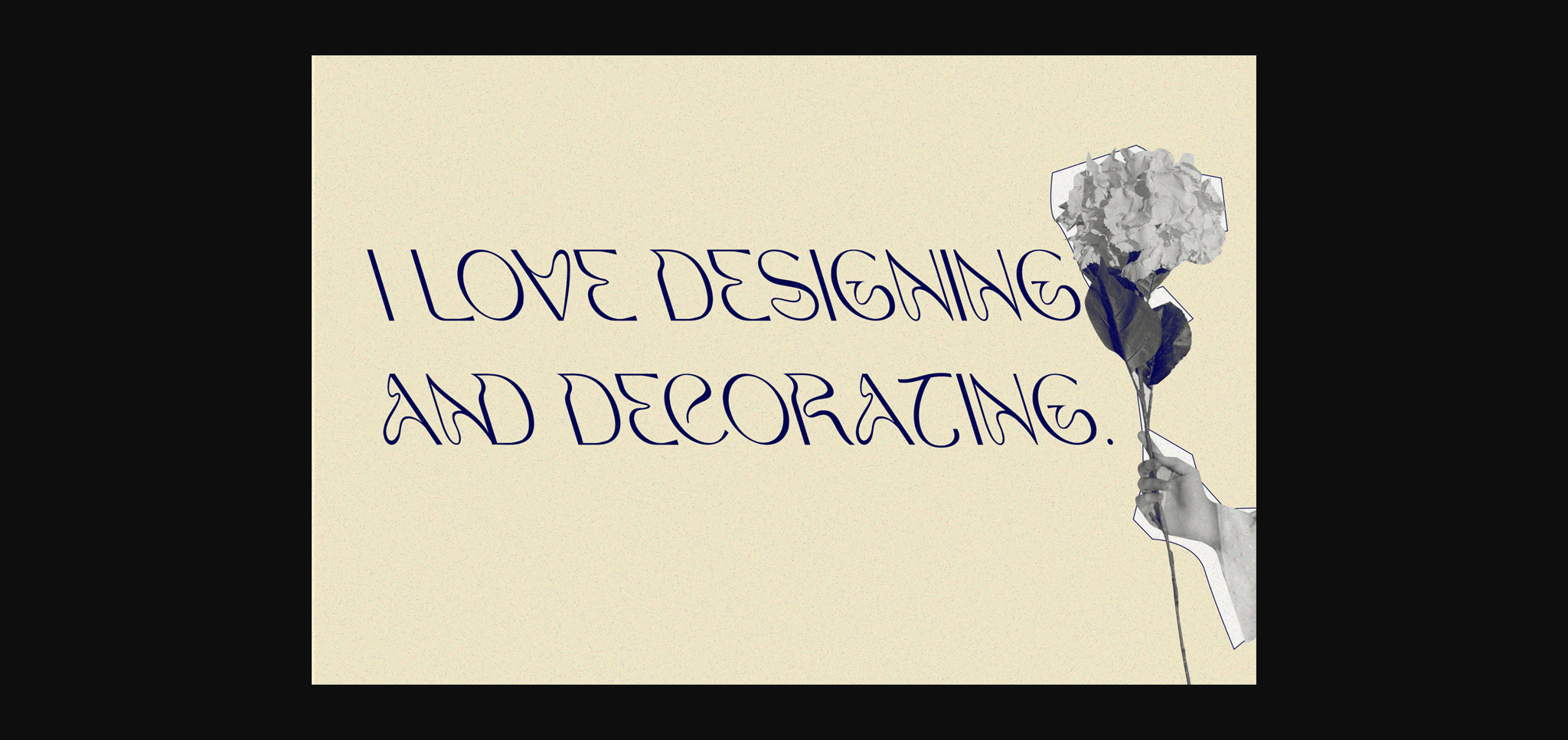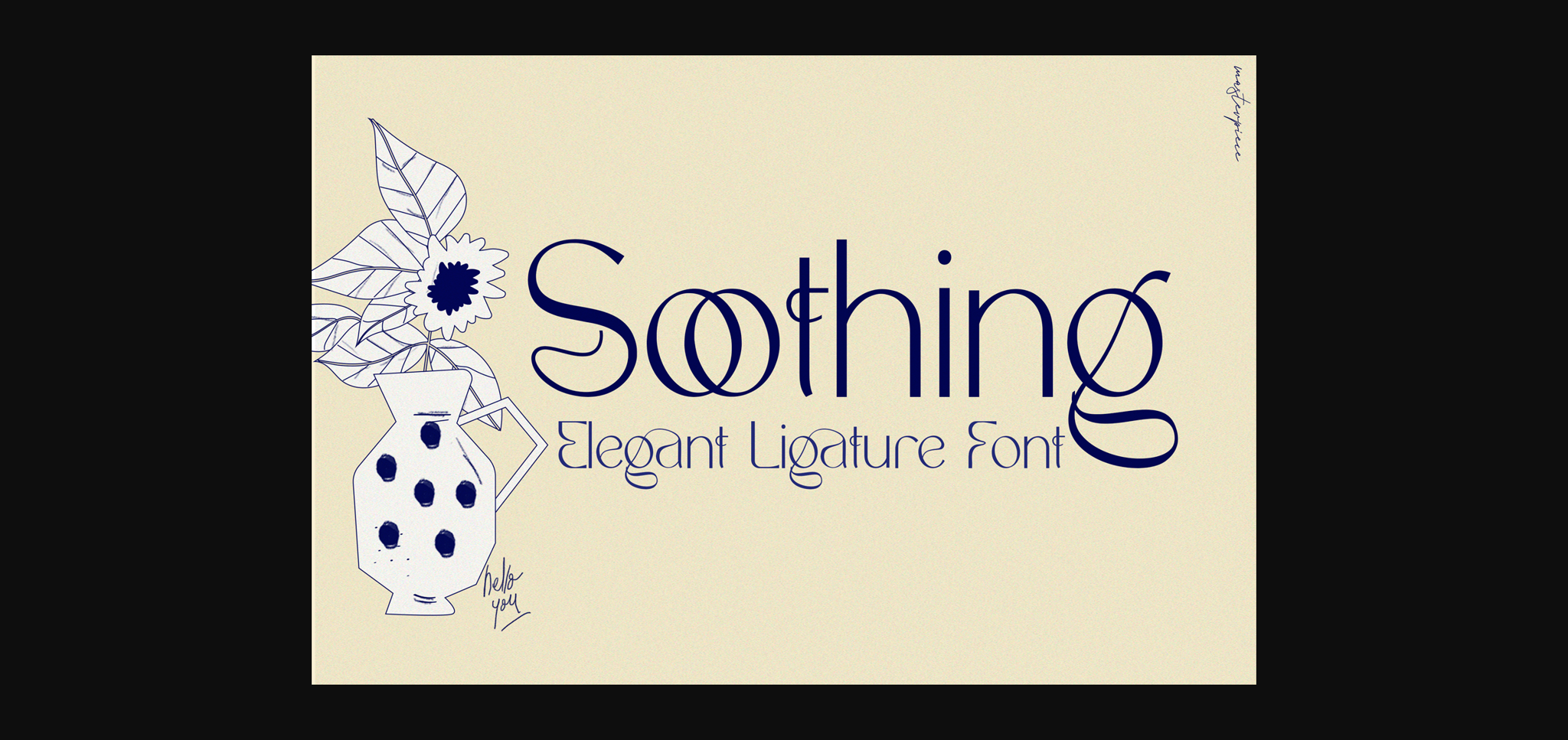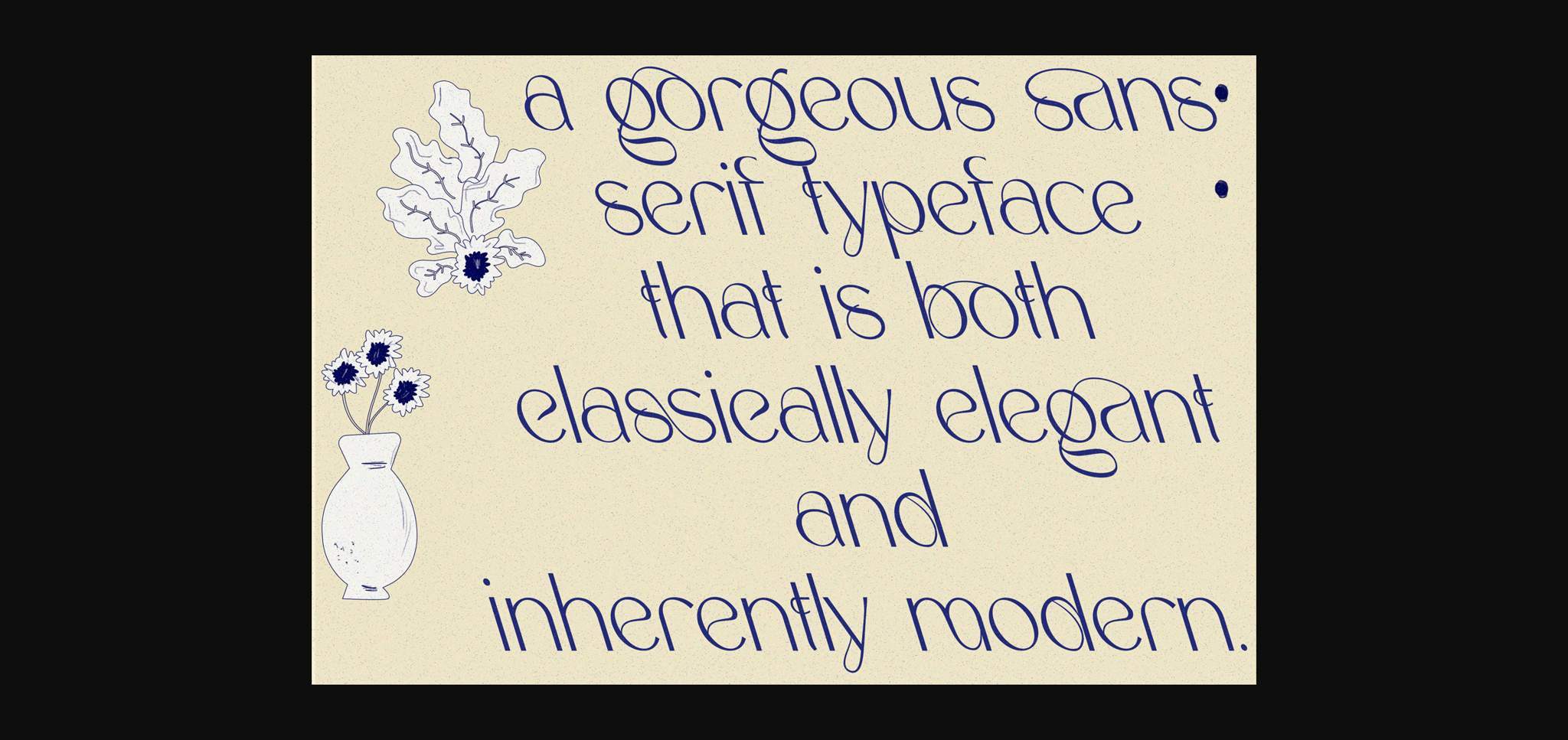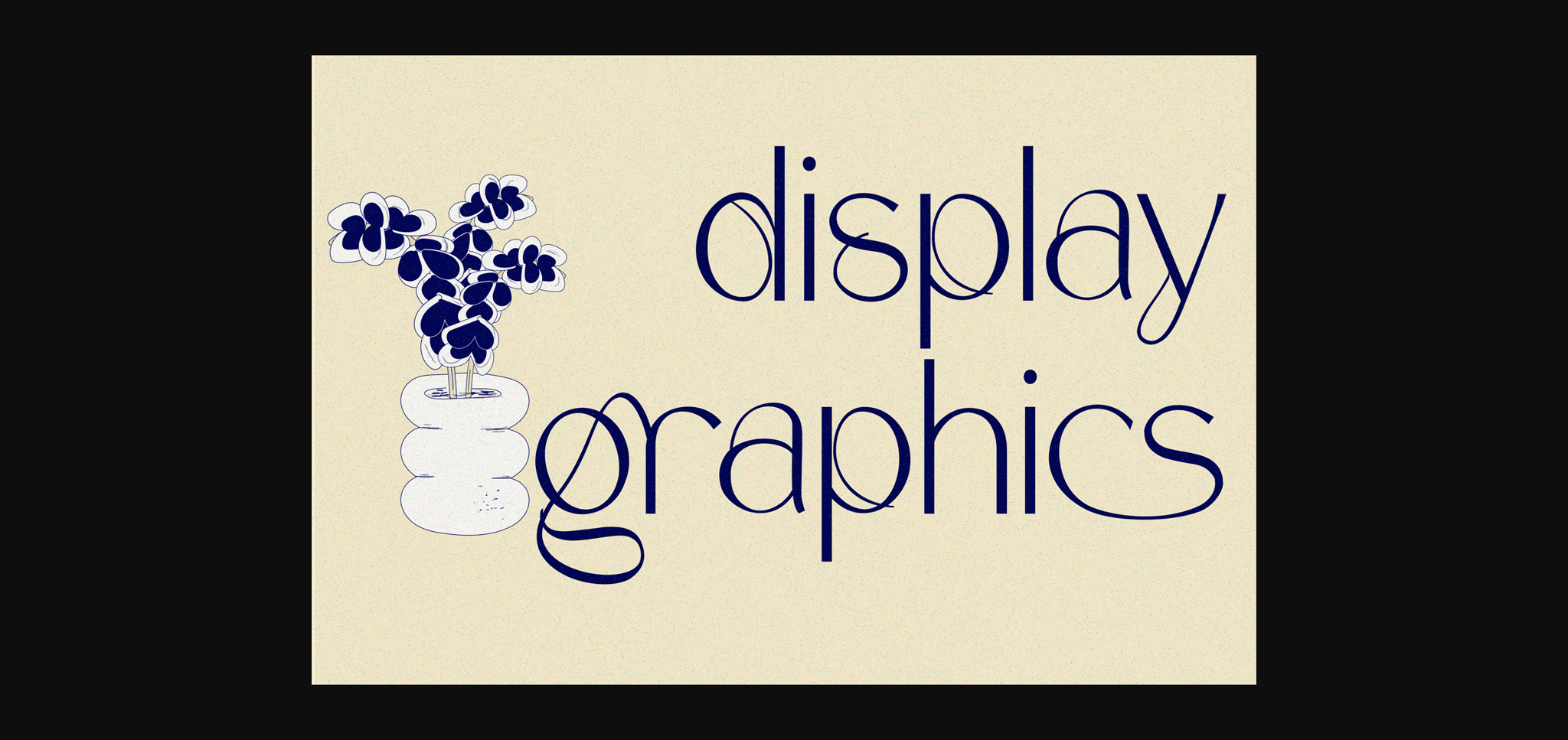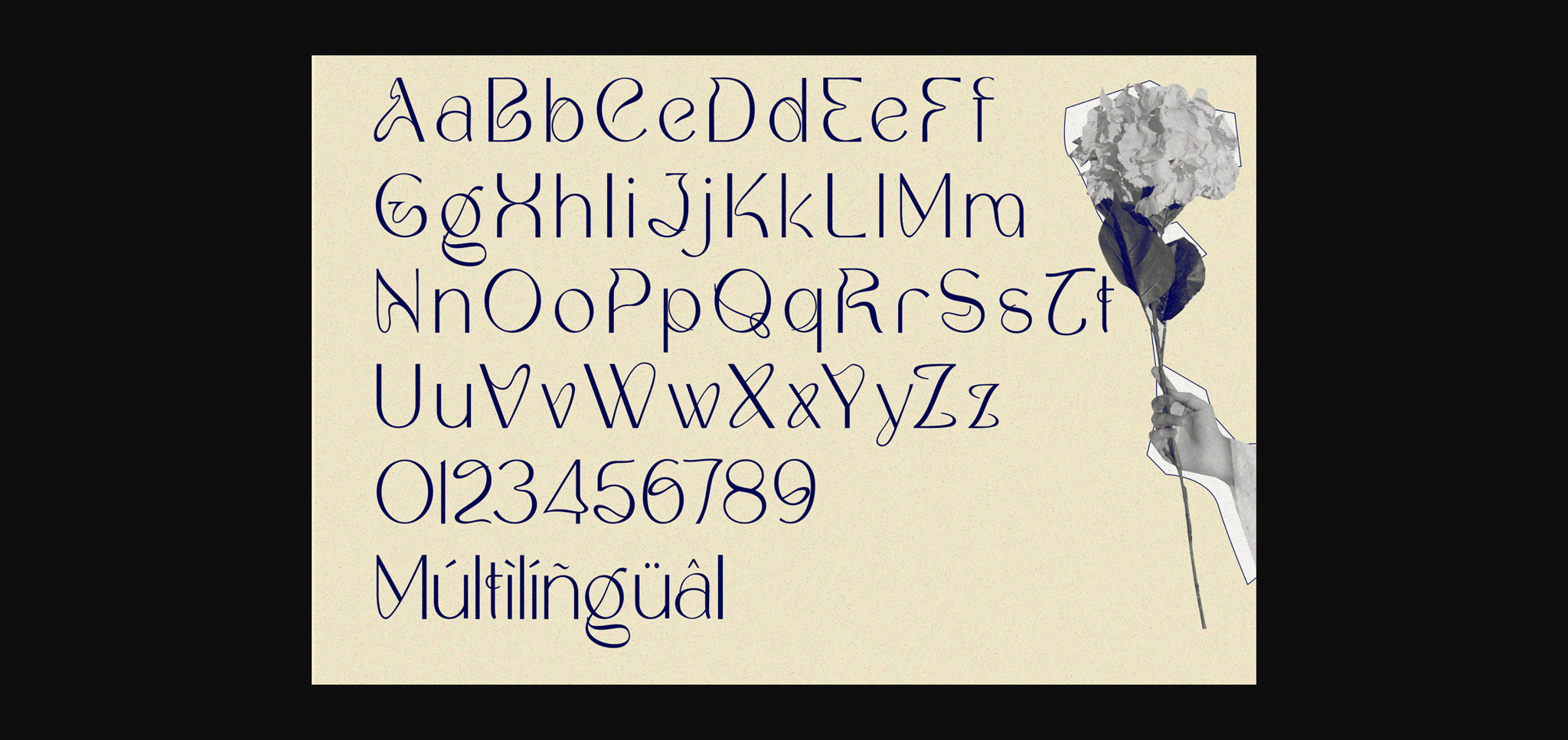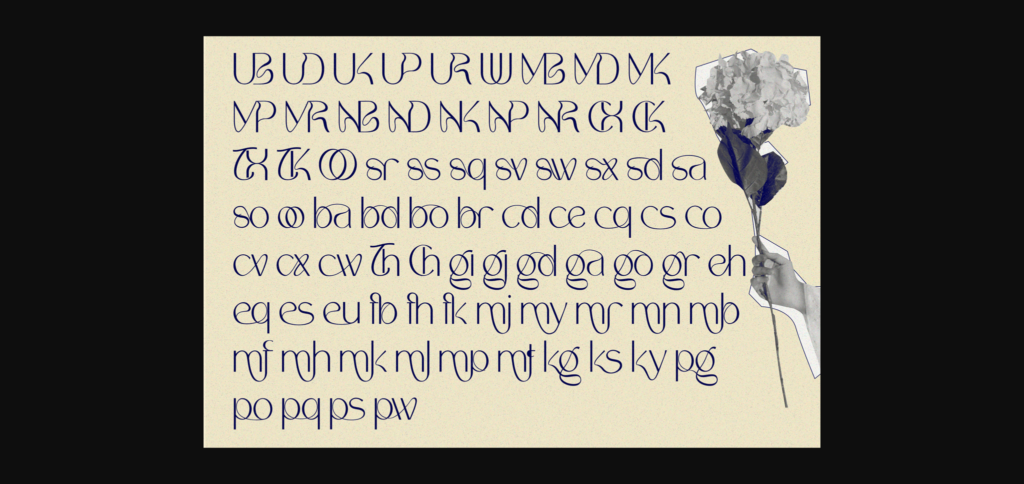
Soothing is a thin, light and elegant sans serif font. This gentle font will look gorgeous on a variety of design ideas. It will add a joyful and romantic touch to each of your projects!